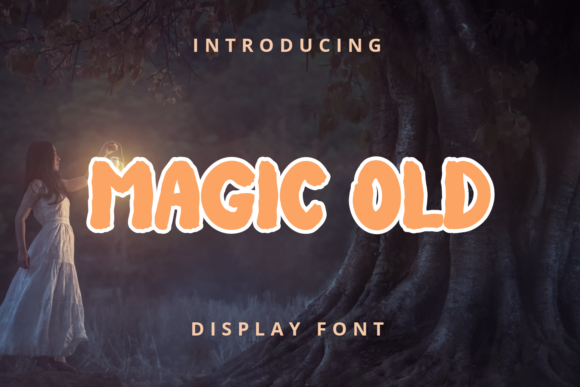
Introducing Magic Old Font, the ultimate display font for those seeking a touch of playfulness and thickness in their designs. With its whimsical and quirky nature, Magic Old will undoubtedly brighten up every project you undertake.
Specially tailored for high school students, Magic Old is the perfect font to add a spark of creativity to your presentations, assignments, and personal projects. Its thick lettering and playful personality will captivate your audience, leaving a lasting impression that sets you apart.
Crafted with precision by the experts at Planetz Studio, Magic Old is a font that exudes charm and originality. By incorporating it into your designs, you not only elevate your projects but also inject a touch of your own unique style.